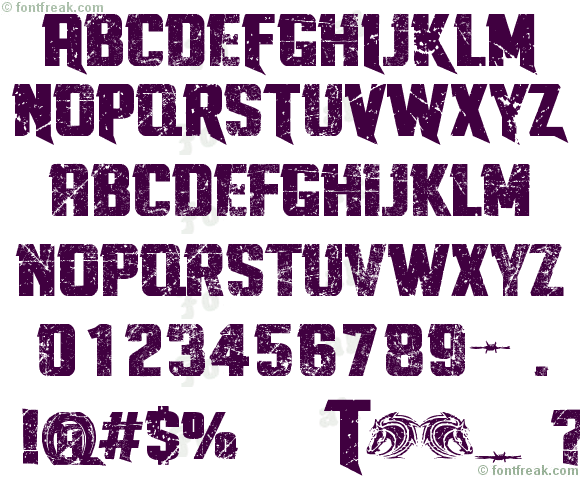
Twisted Stallions
About Twisted Stallions
Twisted Stallions is a striking display font designed by Guilhem Greco and released under a freeware license by Hero Fonts in 2013. This font falls into the decorative category, showcasing a rugged, edgy aesthetic that captures attention with its unique character. The visual style features a distressed texture, giving it a weathered appearance that evokes a sense of strength and individuality. The bold stroke weight contributes to its commanding presence, while the irregular shapes and sharp angles add an element of dynamism and intrigue. The spacing is tight, enhancing the font's impactful look, making it suitable for a variety of design applications.
Twisted Stallions is ideal for use in projects such as movie posters, where a bold statement is essential, or in music album covers that seek to convey a rebellious spirit. It also works wonderfully for branding in niche markets, such as biker shops or tattoo parlors, where a rugged aesthetic aligns with the target audience. Additionally, it can enhance restaurant menus that aim for a unique, thematic experience, or be utilized in promotional materials for events that focus on adventure or extreme sports. The target audience for this font includes graphic designers, small business owners, and content creators who are looking to make a memorable impression.
What truly sets the Twisted Stallions font apart is its ability to convey a sense of attitude and personality. Its distinctive style not only grabs attention but also communicates a narrative, making it an excellent choice for those looking to stand out in a crowded marketplace. For anyone seeking a unique typeface that encapsulates both boldness and creativity, the Twisted Stallions font free download is a fantastic resource.